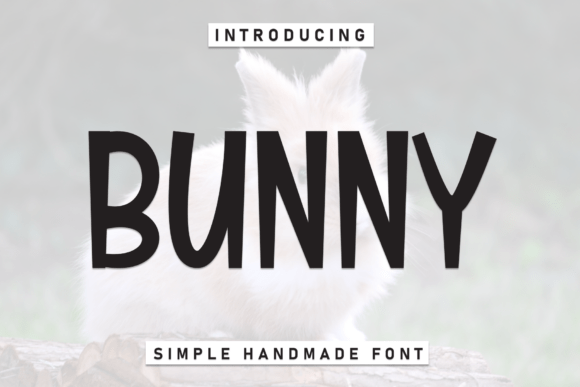
Meet Your New BFF: The Bunny Font
Have you ever stared at a blank page, waiting for inspiration to strike, only to have your creativity sparked by a simple yet striking font? For designers, this moment is a treasure trove of possibilities, and it’s exactly what happens when you meet the Bunny Font.
This charming display font is more than just a pretty face – it’s a thoughtful combination of simplicity, approachability, and modern style. With clean lines, balanced letterforms, and subtle rounded edges, the Bunny Font is perfect for adding a warm and inviting touch to your designs. Whether you’re creating a brand, crafting headlines, or packaging a product, this versatile font delivers clarity and charm in equal measure.
So, what makes the Bunny Font so valuable to designers? Its crisp structure and adaptable style make it a go-to choice for a wide range of projects, from digital content to physical products. And with its friendly, approachable vibe, you can trust that your designs will be met with a smile.
- Unique Characteristics: The font features a playful, hand-drawn design with distinctive rounded edges and whimsical flair, making it suitable for children’s books, greeting cards, and other creative projects.
- Font Weight and Style: Bunny Font includes a range of weights and styles, from Light to Bold, and Script to Regular, allowing for flexibility in design applications.
Bunny Font Review
I recently had the chance to dive into the “Bunny Font” and here’s my honest take on it. ✨ The font’s playful and whimsical feel really shines through, making it perfect for child-friendly projects or any design that needs a bit of charm. The bunny-inspired characters are well-designed and add a delightful touch to any text.
Some of the key strengths of the font include:
- Unique and recognizable characters
- Good legibility, even at smaller font sizes
- Easy to customize and manipulate
- The font may be too cute or childish for certain audiences
- Lack of bold or italic variations may limit its use in certain contexts
- Not ideal for professional or formal design projects
Overall, I’d say the “Bunny Font” is a fun and creative addition to any designer’s toolkit. While it may not be suitable for every project, it’s perfect for injecting some personality and whimsy into child-friendly designs or projects that need a playful touch.
Bunny Font is ideal for children’s books, nursery decorations, and Easter-themed designs. It can also be used for social media posts, advertisements, and other creative projects where a playful, whimsical font is desired.
To get the most out of Bunny Font, experiment with different font sizes, colors, and styles to create a unique and eye-catching design. You can also combine Bunny Font with other playful fonts or graphics to create a visually appealing design.
Bunny Font is a playful, cursive font often used in children’s content, invitations, and casual designs. However, it may not be suitable for all projects due to its informal nature.